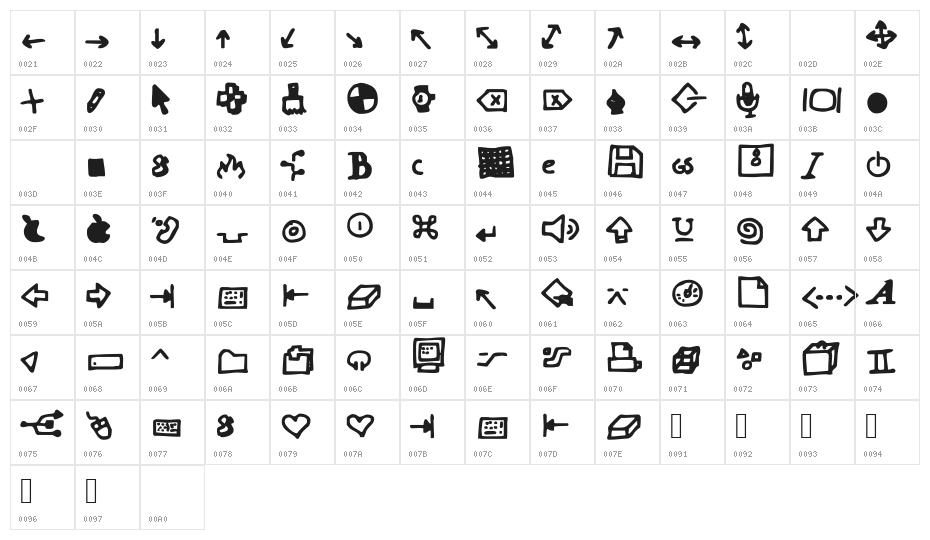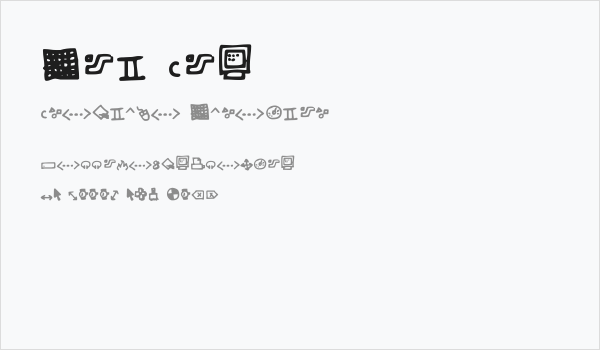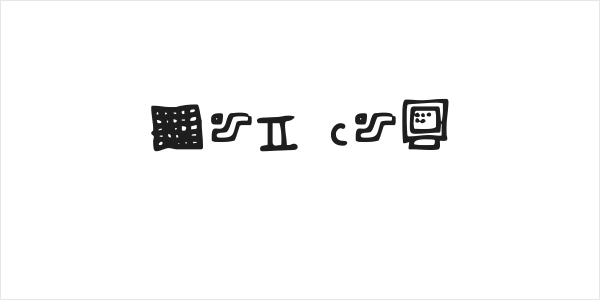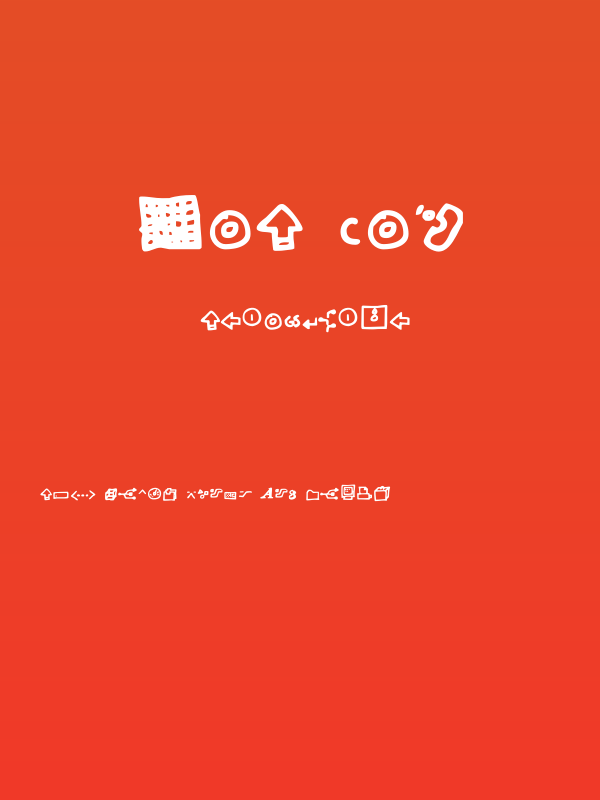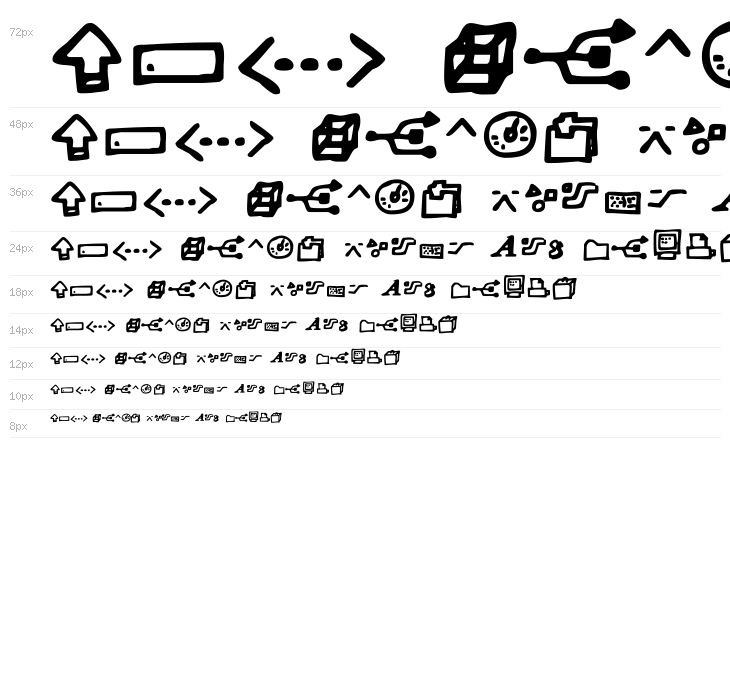
Dot Com Font
Dot Com Description
This font is a playful and eclectic collection of symbols and icons, reminiscent of early digital and internet culture. Each character is a unique pictogram, ranging from floppy disks to arrows, and various tech-related symbols. The style is bold and cartoonish, with thick strokes and a hand-drawn appearance. The characters are quirky and informal, making them suitable for creative and fun projects. The font captures a nostalgic essence of the dot-com era, with its distinctive and memorable icons.
| Use Case | Logos, Posters, Digital Art |
| Proposed Projects | Ideal for retro-themed designs, tech-related graphics, educational materials, and creative digital art projects. |